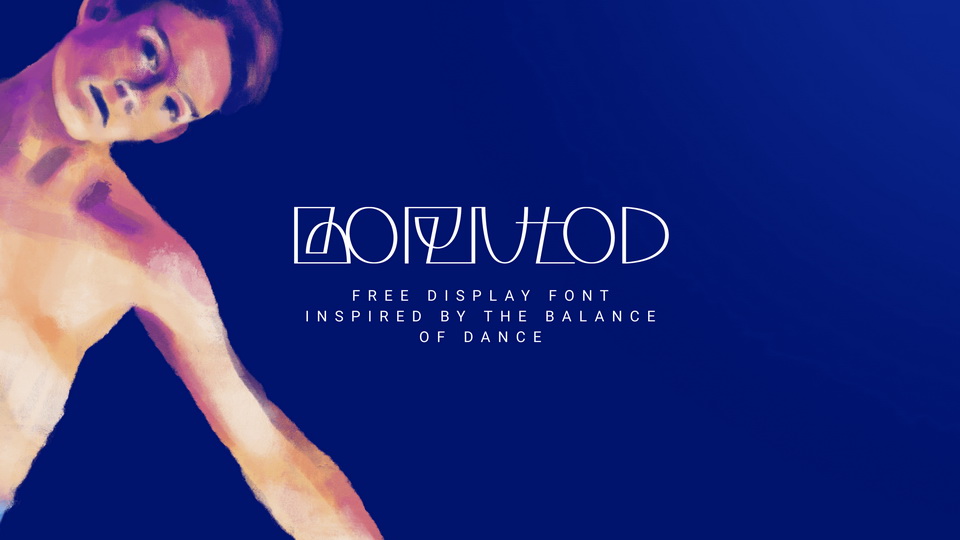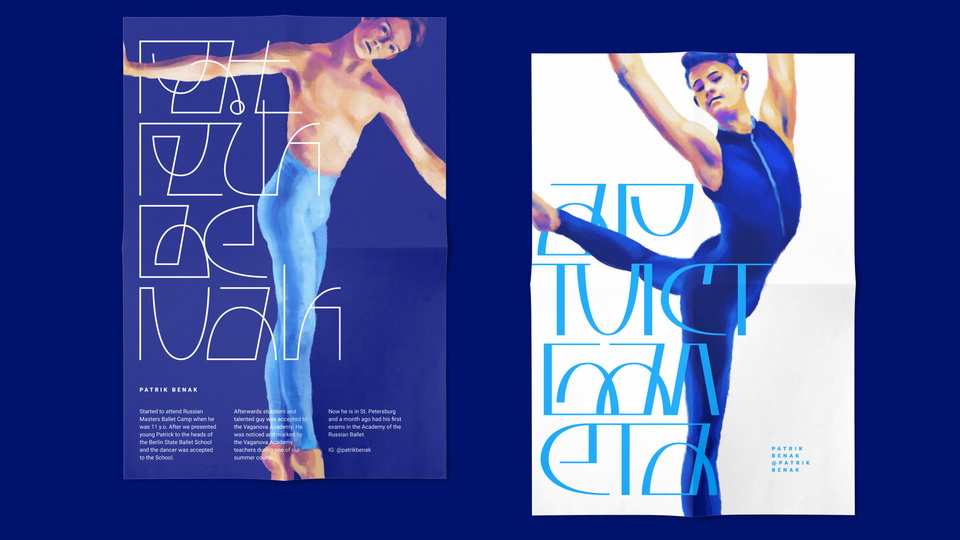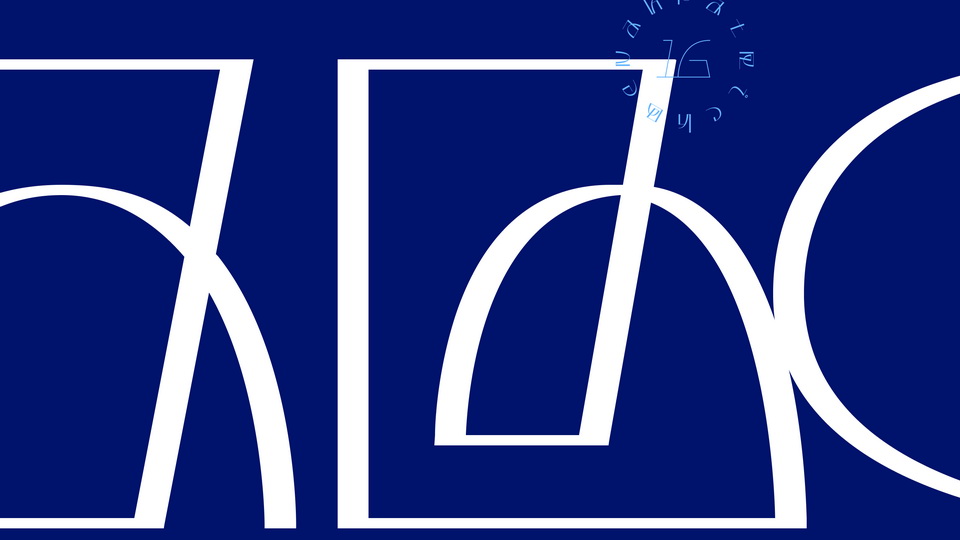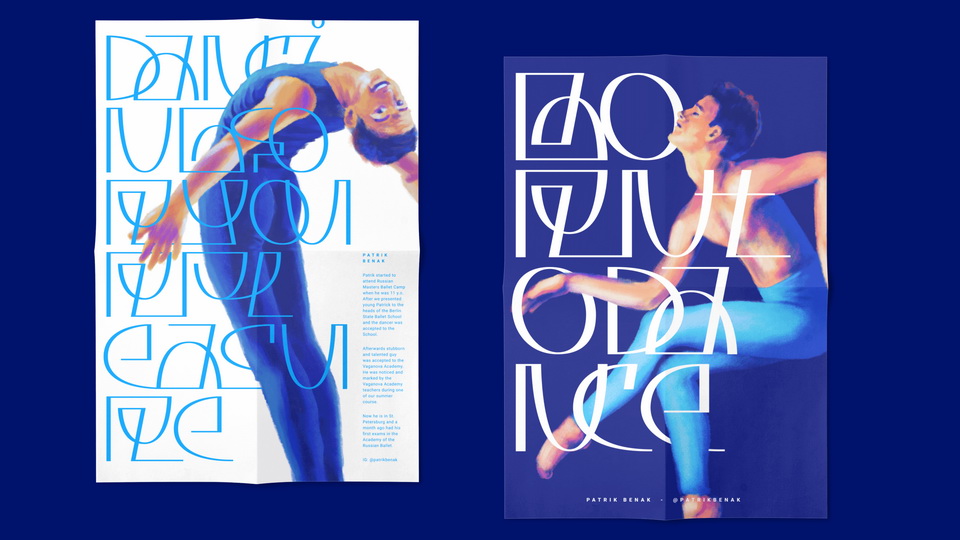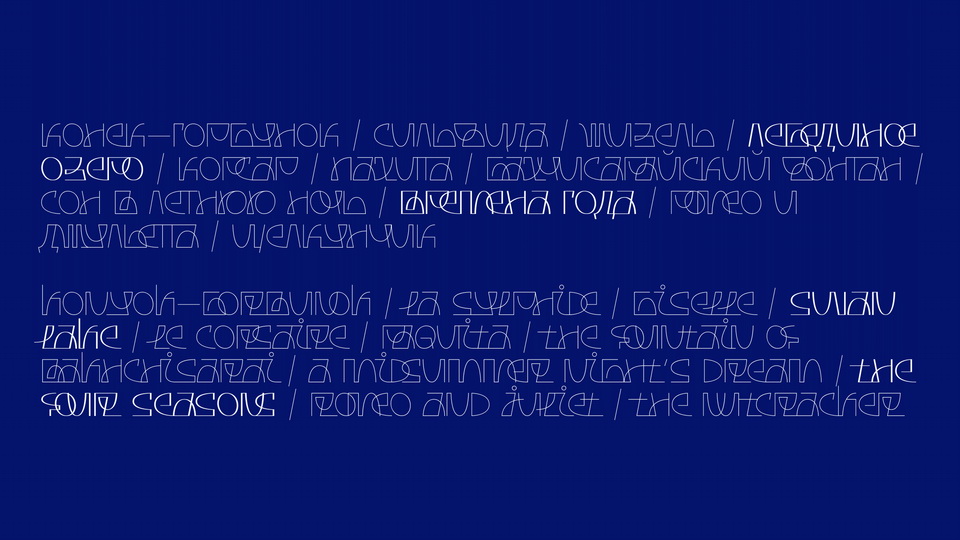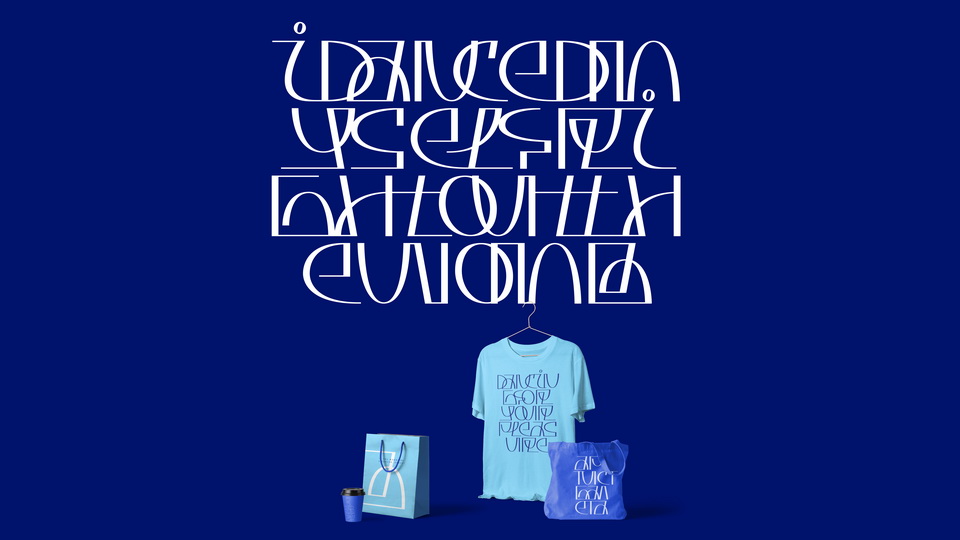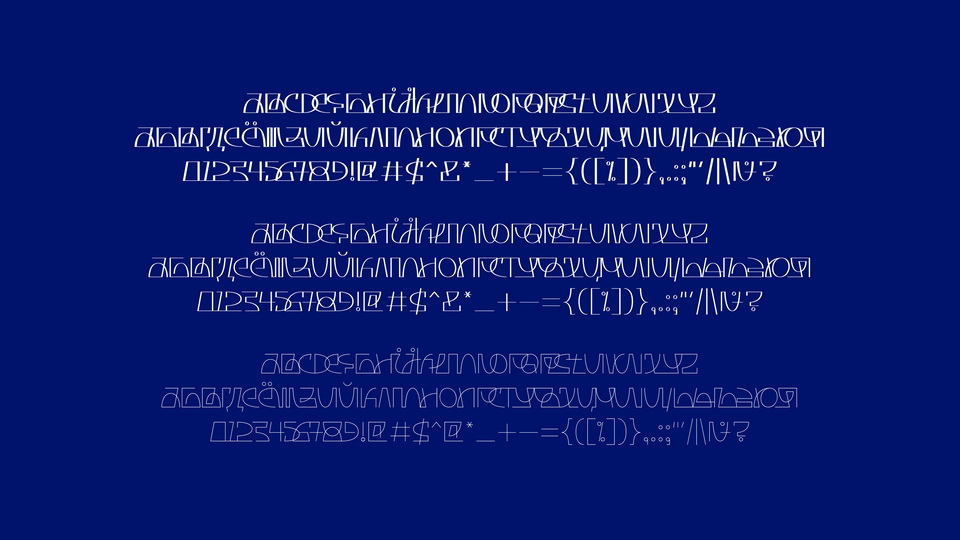
Borntod is a unique display typeface inspired by the balance of dance. The font family comes with 3 weights and supports Latin and Cyrillic.
Borntod is the best choice for posters and magazine covers or as an expressive element typography artworks.